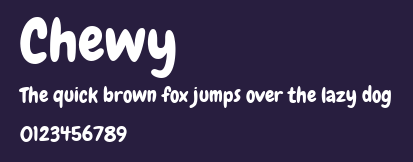
• Font Name: Chewy
• Full Font Name: Chewy Regular
• Designer: Squid
• Manufacturer: Font Diner, Inc DBA Sideshow
About Chewy.ttf
Chewy.ttf is a modern, elegant sans-serif font designed for ultimate readability and visual harmony. Perfect for branding, headlines, web design, and print materials.